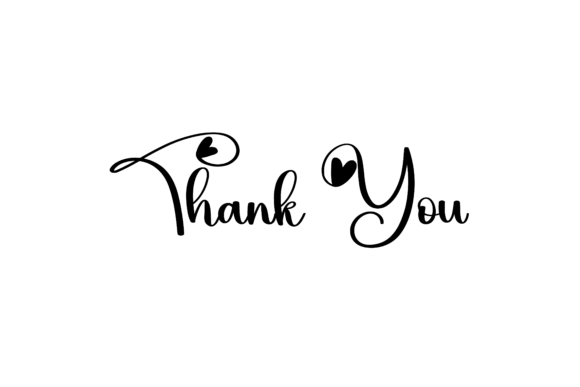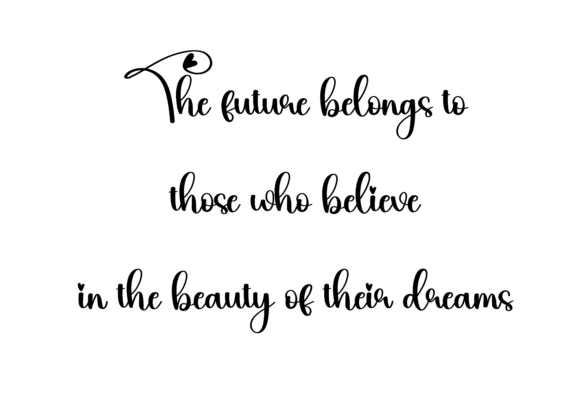
Introduction to Hey Font
As you sit at your desk, staring at a blank page or screen, a spark of creativity ignites within you. The possibilities are endless, but the perfect design element is just out of reach. That’s when you stumble upon it – the “Hey Font”, a masterfully crafted script font that sets your imagination ablaze.
With its refined elegance and organic charm, the Hey Font is the ultimate design resource for creatives seeking to elevate their projects. Whether you’re crafting a wedding invitation, designing social media content, or working on a high-quality paper craft, this font is sure to leave a lasting impression. Its versatility and sophistication make it a valuable asset for designers, allowing them to express their vision with clarity and precision.
Key Features of Hey Font
- Includes a comprehensive character set with extensive language support, making it an ideal design resource for international projects.
- Hey Font is designed to be highly legible, with a clean and modern aesthetic that works well in both body text and headings.
Honest Review: Hey Font
As a designer, I’m always on the lookout for new and exciting design resources to enhance my creative projects. Hey Font has caught my attention with its wide range of high-quality fonts that can elevate any design.
Hey Font is commonly used for creating social media graphics, posters, and flyers. It’s also great for use in presentations and reports.